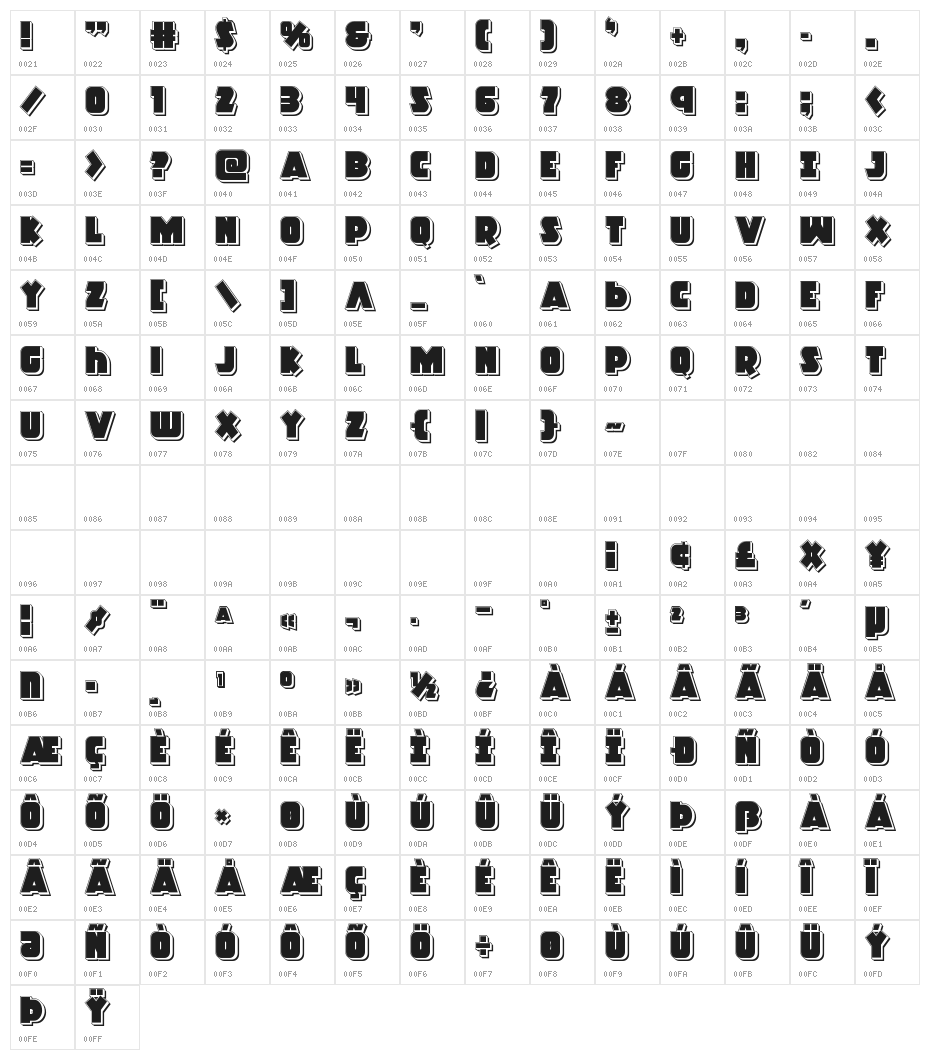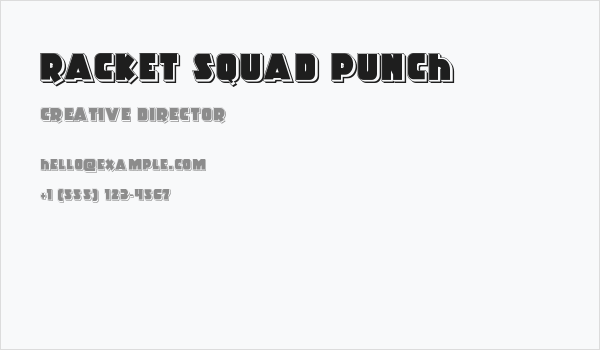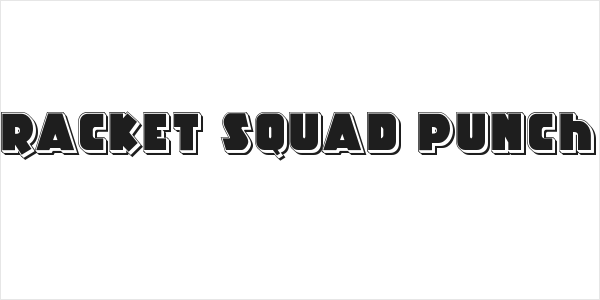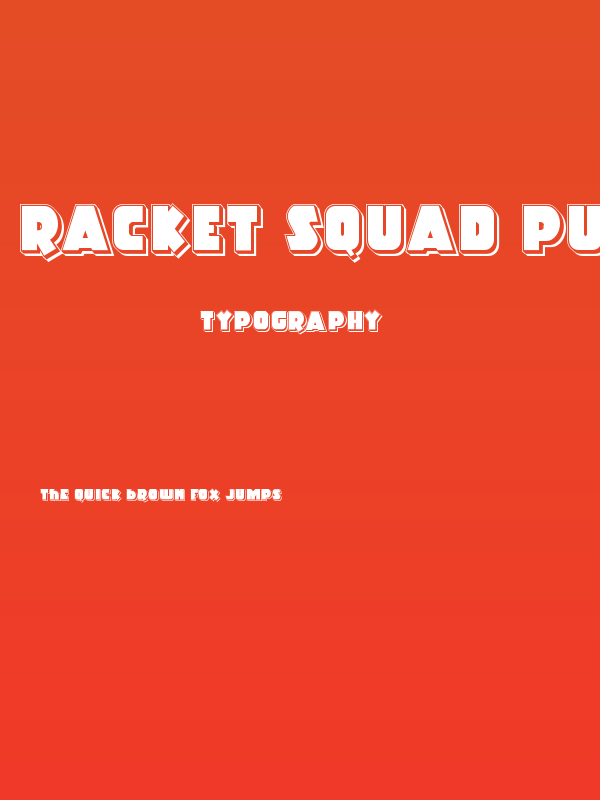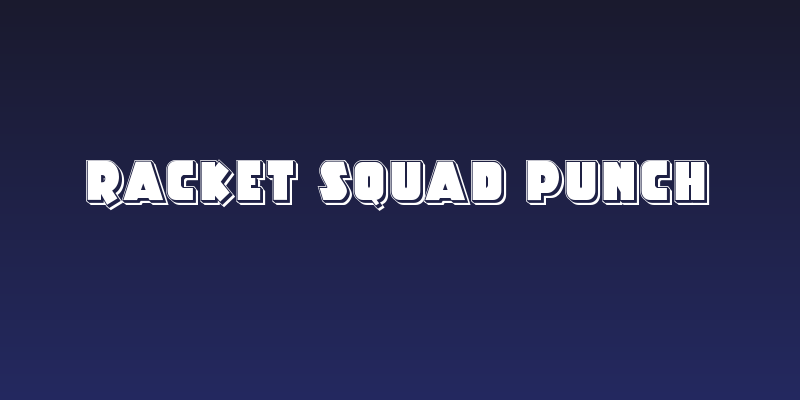
Racket Squad Punch Font
Racket Squad Punch Description
This bold, decorative font features a strong, three-dimensional appearance with a shadow effect that gives it a striking, impactful look. The characters are blocky and geometric, with a thick outline that enhances their presence. The uppercase and lowercase letters maintain a consistent style, with the lowercase being slightly smaller but equally bold. Numbers and special characters are designed to match the robust style of the alphabet, making the font versatile for various uses. The overall design is modern and eye-catching, suitable for projects that require a bold statement.
| Proposed Projects | Ideal for posters, headlines, logos, and any design needing a strong visual impact. |